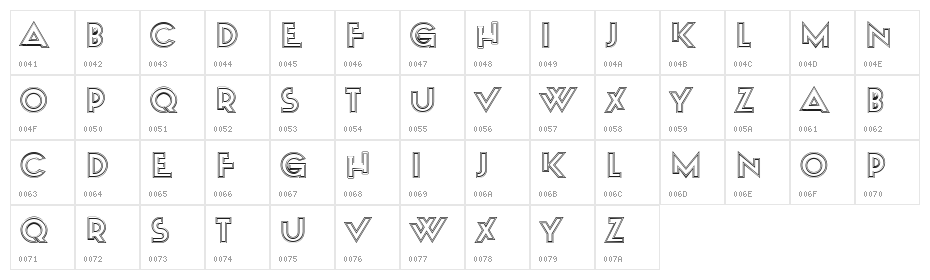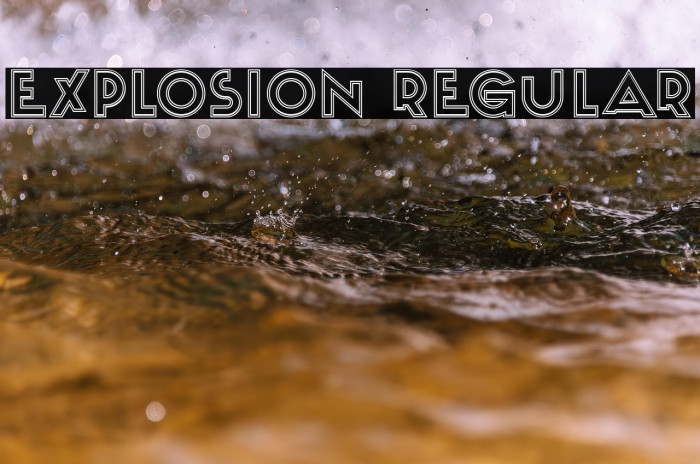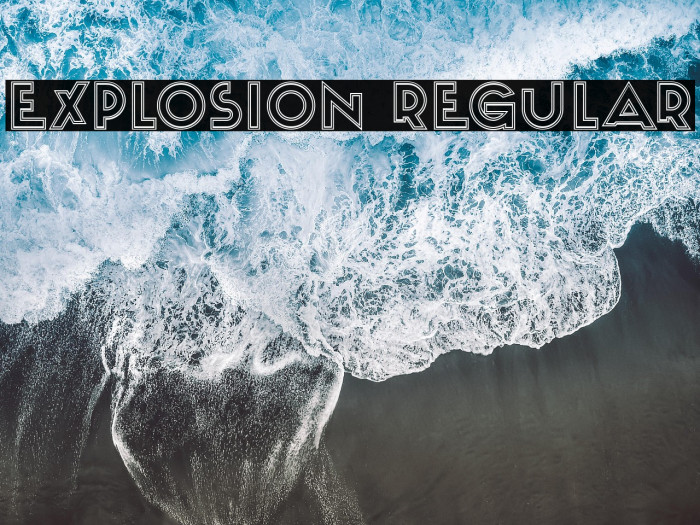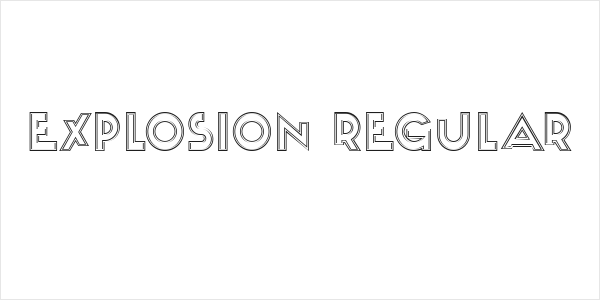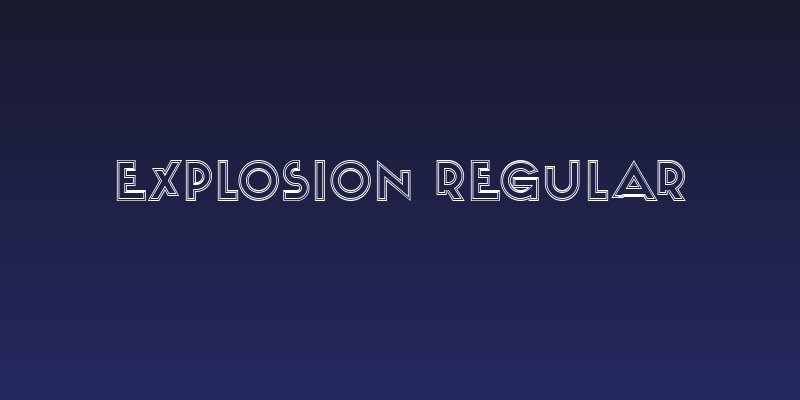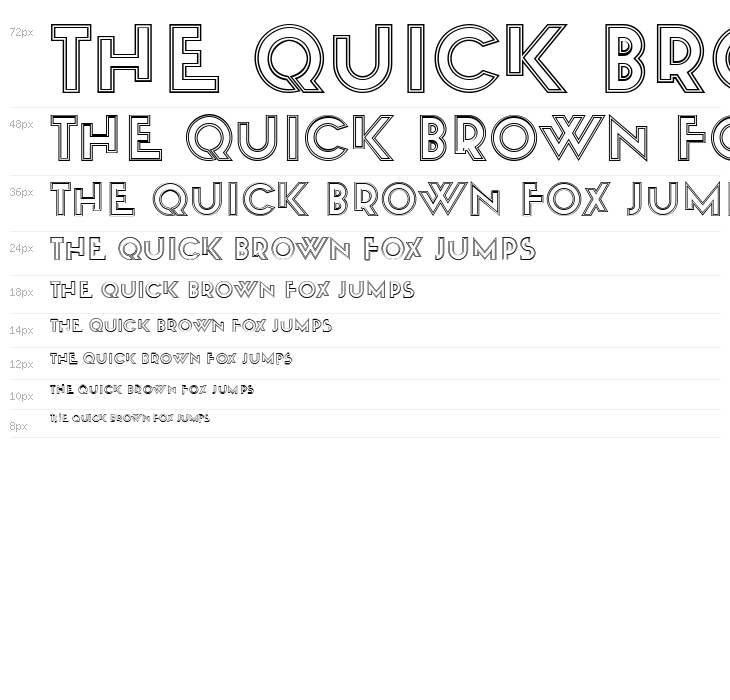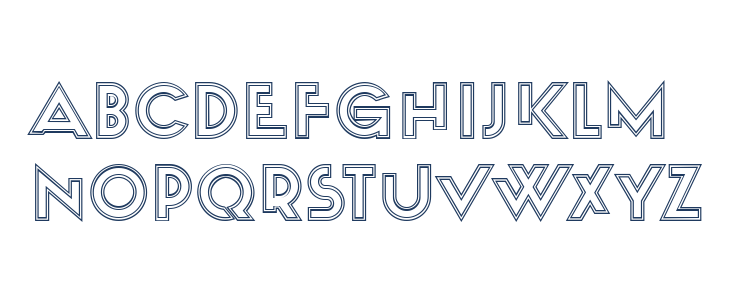
Explosion Regular Font
Explosion Regular Description
This font features a bold, geometric design with a distinct outline style that gives it a three-dimensional appearance. The characters are uppercase only, with a consistent width and height, creating a uniform look across the alphabet. The lines are clean and sharp, emphasizing the modern and structured aesthetic. The font's design is reminiscent of architectural or industrial styles, making it suitable for projects that require a strong visual impact. The spacing between characters is normal, ensuring readability while maintaining its bold presence.
| Proposed Projects | Ideal for posters, headlines, logos, and branding materials that require a strong, modern aesthetic. |